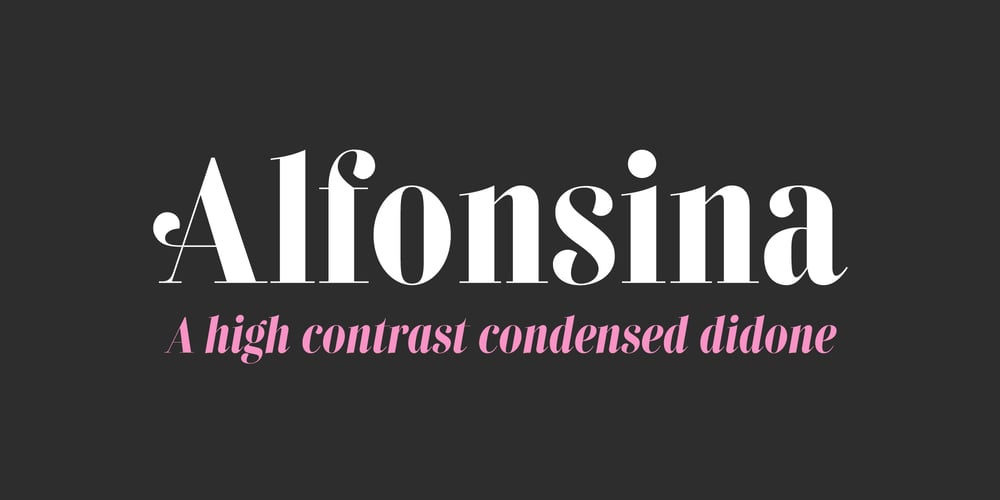
Alfonsina Font Family was designed by Eduardo Dulin and published by Eduardo Dulin. Alfonsina contains 2 styles and family package options. Alfonsina is a high contrast condensed didone typeface well-suited to classy magazines, short text, branding design, packaging and advertising.With a great set of alternates and swashes, allowing for more stylized designs. This font of thin serifs includes italic, strengthening the concept of its design.Alfonsina contains a set of more than 500 characters and supports a variety of languages.